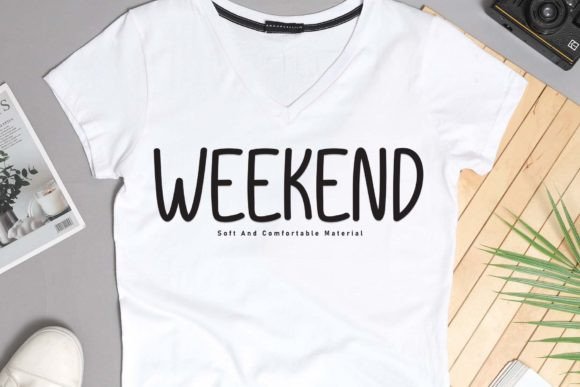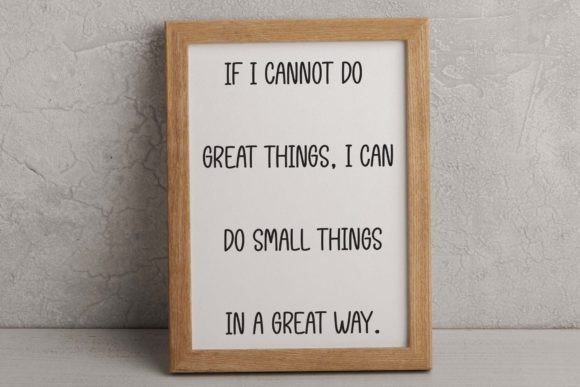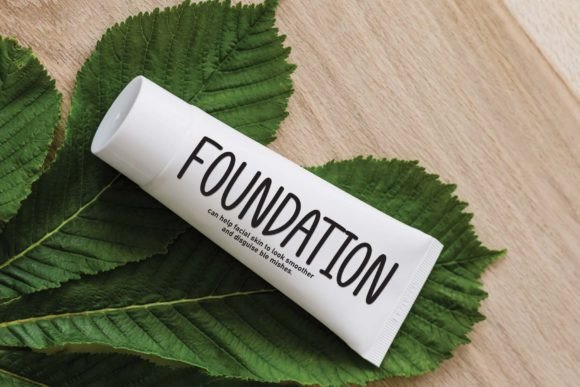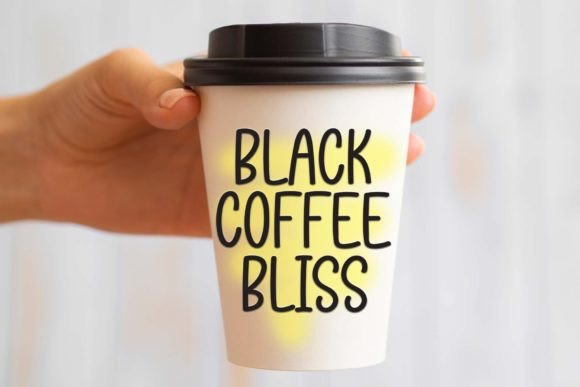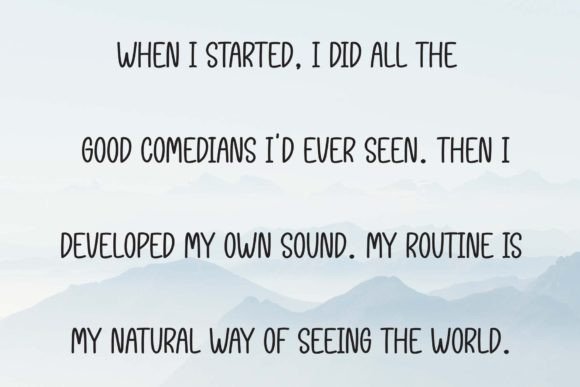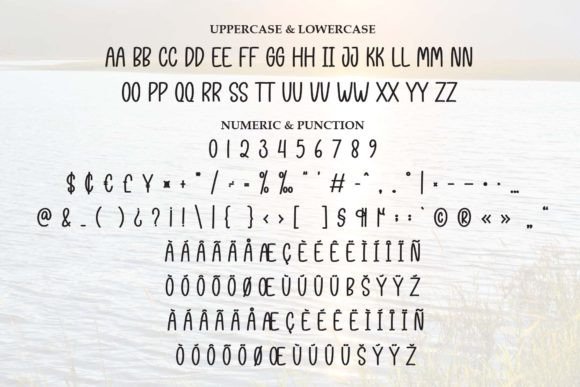
Introduction to Lakeview Font
Have you ever found yourself stuck in front of a blank canvas, struggling to find the perfect font to bring your creative project to life? It’s a familiar feeling for many designers, but what if I told you there’s a font that could change all that? One that’s as sweet as a summer breeze and as versatile as a blank page.
Enter the Lakeview Font, a charming handwritten font that’s sure to add a touch of personality to any design. Whether you’re crafting a wedding invitation, creating a birthday card, or working on any other creative project, Lakeview Font is the perfect design resource to elevate your work. With its high-quality design and transparent background, this font is a must-have for any designer looking to add a fun and playful touch to their designs.
Key Features of Lakeview Font
- Unique, hand-drawn design perfect for creative projects and personal branding.
- Includes multiple font styles and weights, ideal for adding depth and variety to your design.
- Perfect for use in graphic design, digital art, and other creative projects requiring a distinctive and elegant font.
Honest Review: Lakeview Font
- What works well: ✨ The Lakeview Font is incredibly versatile, suitable for both modern and classic designs. It’s a great choice for creating a clean and minimalistic look.
- ✨ The font is highly customizable, allowing you to adjust the size, color, and even add a transparent background for a more dynamic effect.
- ✨ The high quality of the font is evident in its crisp lines and smooth curves, making it perfect for a variety of design projects.
While the Lakeview Font is an excellent resource for designers, I did encounter a few limitations. The font doesn’t support certain special characters, which can be a problem for projects that require international languages.
- ⚠️ Limited support for special characters, which can be a problem for designers working with international languages.
- ⚠️ The font may not be suitable for designs that require a lot of bold or italic text, as it can become difficult to read.
Overall, I’m impressed with the Lakeview Font and would highly recommend it to designers looking for a high-quality, free font to add to their design arsenal. With a little creativity, the Lakeview Font can be used in a wide range of creative projects, from branding to web design.
Tips for Getting the Most Out of Lakeview Font
To get the most out of the Lakeview Font, experiment with different font sizes, colors, and spacing to create a unique and eye-catching design. You can also combine the Lakeview Font with other design elements, such as images and shapes, to create a visually appealing creative project.
The Lakeview Font is perfect for a variety of creative projects, including business cards, brochures, and social media graphics. Its high-quality design and transparent background make it an ideal choice for designers looking to create a professional and visually appealing design.